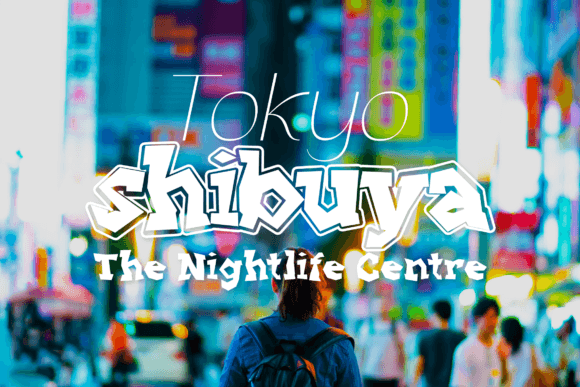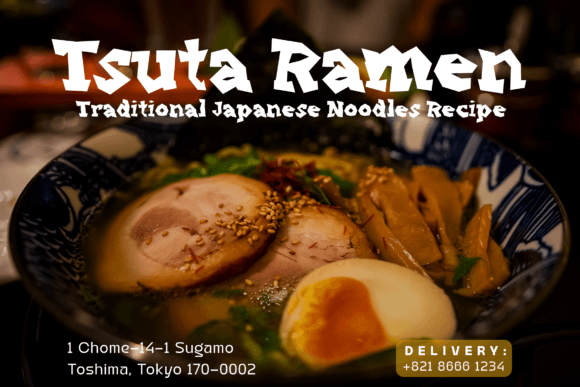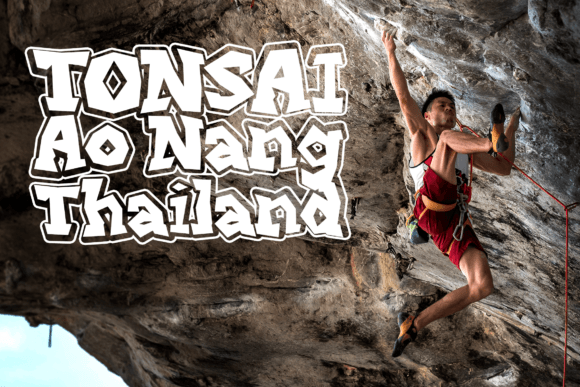
Introduction to Punk Vibes Font
Have you ever found yourself staring at a blank canvas, searching for that perfect spark to ignite your creative project? The thrill of bringing an idea to life can be exhilarating, but sometimes it’s the smallest details that make all the difference. For designers, a high-quality font can be the key to making a lasting impression. That’s where the Punk Vibes Font comes in – a game-changing design resource that’s about to revolutionize your creative endeavors.
This versatile font is perfect for making a dramatic impact on posters, brochures, apparel, logotypes, and many other print materials. With its PUA encoding, accessing all the glyphs and alternates is a breeze, making it a free download that’s both easy to use and highly effective. Whether you’re working on a transparent background or a bold, eye-catching design, the Punk Vibes Font is sure to deliver the high-quality results you’re looking for.
Punk Vibes Font Key Features
- Unique blend of punk and graffiti elements, ideal for creative projects requiring an edgy design.
- Features a bold and eye-catching font style, perfect for making a statement in your design project.
- Designed to add a punk-inspired vibe to your creative project, from posters to digital art.
Honest Review: Punk Vibes Font
I recently had the chance to work with the Punk Vibes Font, and I must say it’s been a fun addition to my design resource collection. This font is perfect for any creative project that requires a bold, edgy feel. One of the standout features of this font is its high quality and crisp lines, making it perfect for print and digital use.
- ✨ High-quality design that stands out in creative projects
However, I did encounter a few limitations while working with the Punk Vibes Font. One of the main issues is that it’s a bit limited in its character set, making it less versatile than some other fonts. Additionally, the font can be a bit overwhelming in larger text sizes, so it’s best used in smaller, more creative ways.
Overall, I’d say the Punk Vibes Font is a great addition to any designer’s toolkit, but it’s not a replacement for more versatile fonts. With a bit of creativity and experimentation, you can get some amazing results with this font. Just be mindful of its limitations and use it wisely.
Punk Vibes Font
The Punk Vibes Font is a high-quality design resource perfect for adding a touch of edginess to your creative projects. With a free download available, you can easily integrate this font into your design workflow.
Tips for Getting the Most Out of Punk Vibes Font
To get the most out of the Punk Vibes Font, consider the following tips:
- Use the font with a transparent background to create a bold, eye-catching effect.
- Combine the font with bold graphics and bright colors to create a striking visual impact.
- Experiment with different font sizes and styles to create a unique visual hierarchy.
The Punk Vibes Font is perfect for a variety of creative projects, including:
- Music festival or concert posters.
- Rock-inspired merchandise designs.
- Edgy social media graphics.